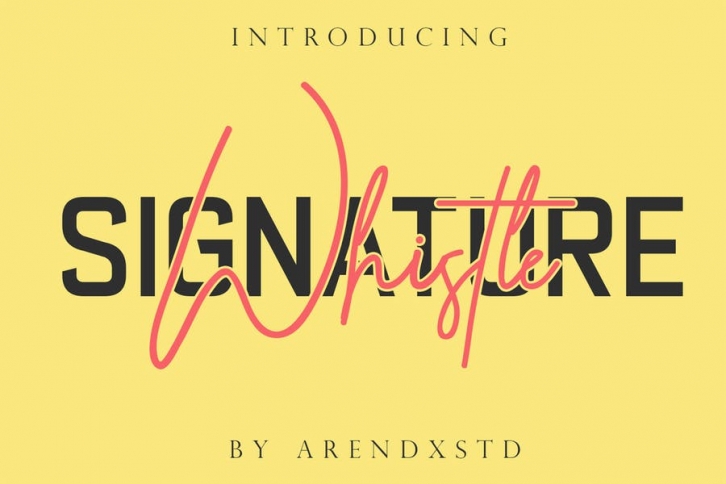
Introducing: Whistle - Signature casual handwritten font with personal charm. With a charming sweep that is perfect for branding your product needs and brand name
Whistle • Font containing upper & lower case letters, numbers and various complete marks
Whistle Alt • Have Having an alternative character, with lowercase letters that are completely new.
Ligatures • Also available for several lowercase letters (more natural double letters). This can only be accessed through software with different devices or flying machine panels, eg Photoshop / Illustrator.